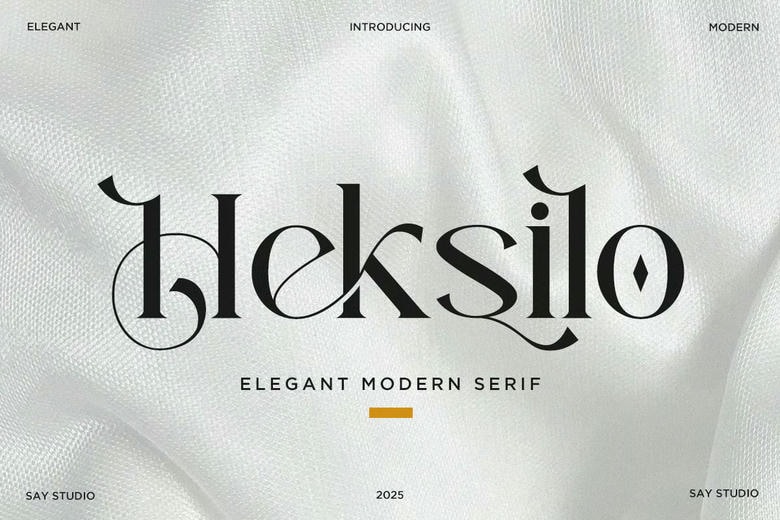
Heksilo Font
Heksilo is a sophisticated contemporary serif typeface with a blend of luxury curves and hard edged contemporary art. Their artful contrast, artistic ligatures, and ornamental lines can be used in the high-end branding, fashion editorial, beauty packaging, magazine titles, and high-end logo designs.
The pleasantly elegant harmony of classiness and contemporary taste means that Heksilo provides the classic look that will raise any visual image.